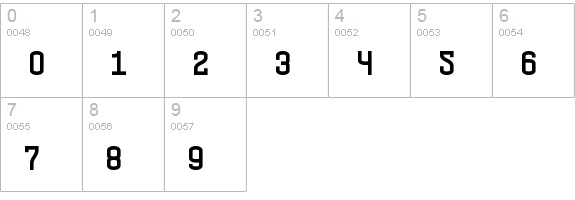
Hardy Font Details
Hardy font is a visually striking typeface that exudes elegance and sophistication. Its clean and modern lines make it perfect for a wide range of design projects, from elegant wedding invitations to sleek corporate branding. The strong and bold letterforms of Hardy font command attention and convey a sense of confidence and professionalism. This versatile font is not only visually appealing but also easy to read, making it an excellent choice for both print and digital mediums. Whether you're creating a magazine layout, designing a website, or crafting a striking poster, Hardy font ensures that your message is delivered with clarity and style. One of the best features of Hardy font is that it is freely available to download at FontsMarket.com. This means that you can add this stunning typeface to your design arsenal without breaking the bank. With just a few clicks, you can access the full range of characters and styles that Hardy font has to offer, allowing you to unleash your creativity without any limitations. The extensive character set of Hardy font includes uppercase and lowercase letters, numbers, punctuation marks, and a variety of special characters. This comprehensive range ensures that you have all the tools you need to create visually stunning and impactful designs. Whether you're a professional designer or a passionate hobbyist, Hardy font is sure to become a valuable addition to your font collection. Its timeless aesthetic and flexibility make it suitable for a wide range of design projects, ensuring that you can create stunning visuals that stand the test of time. Download Hardy font today from FontsMarket.com and unlock its full potential. With its combination of beauty, versatility, and the added bonus of being freely available, Hardy font is a must-have for any designer looking to make a statement in their work.